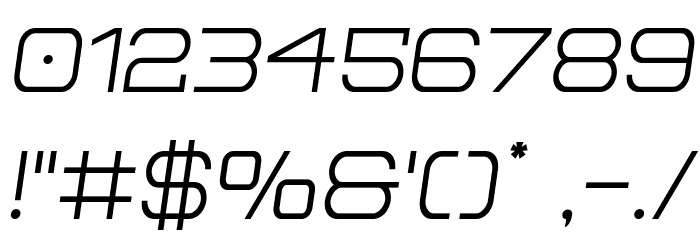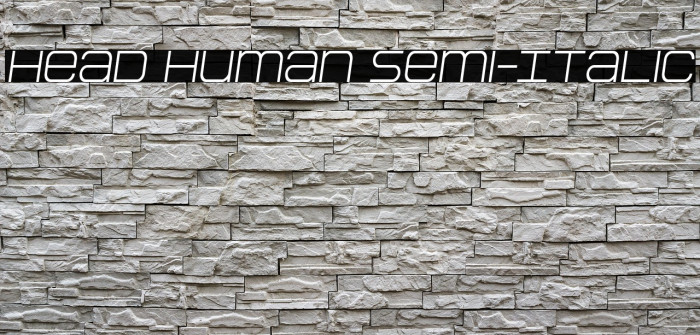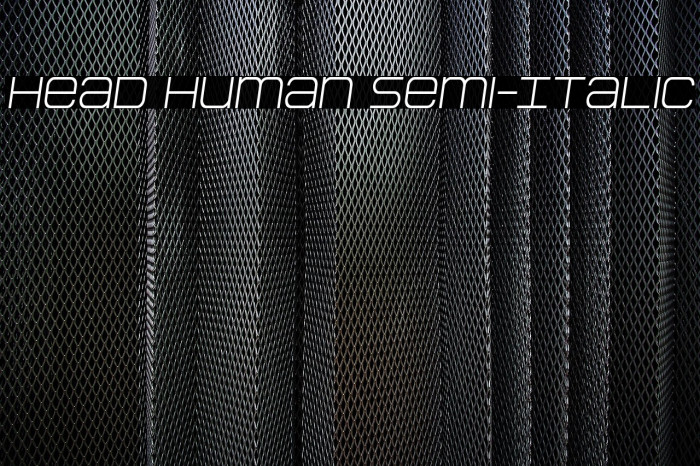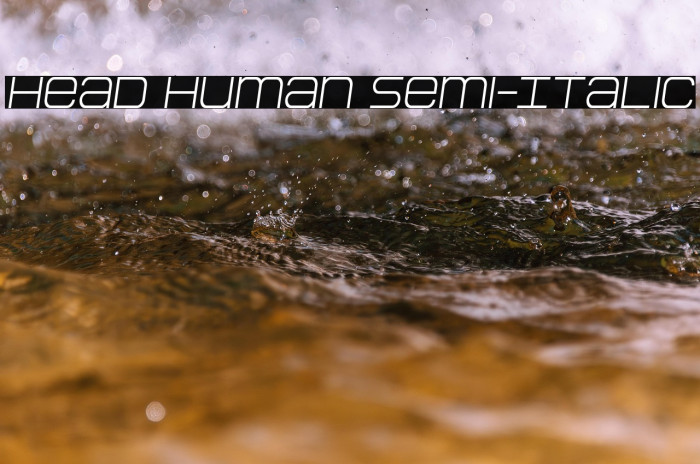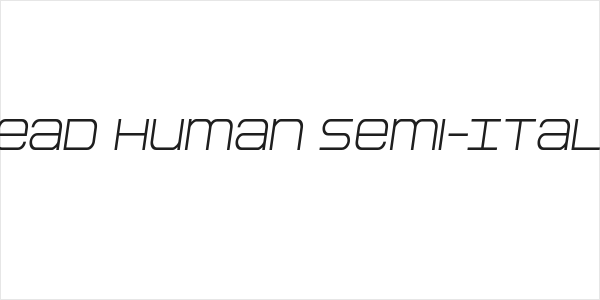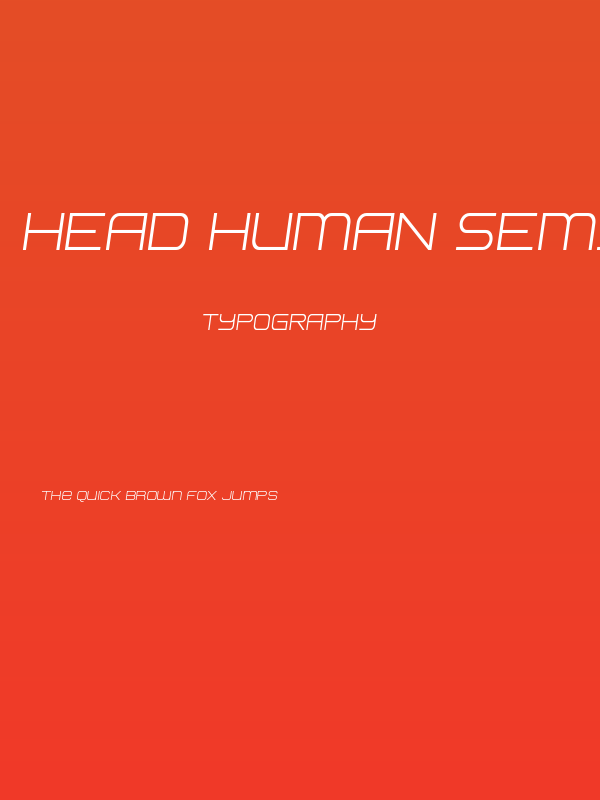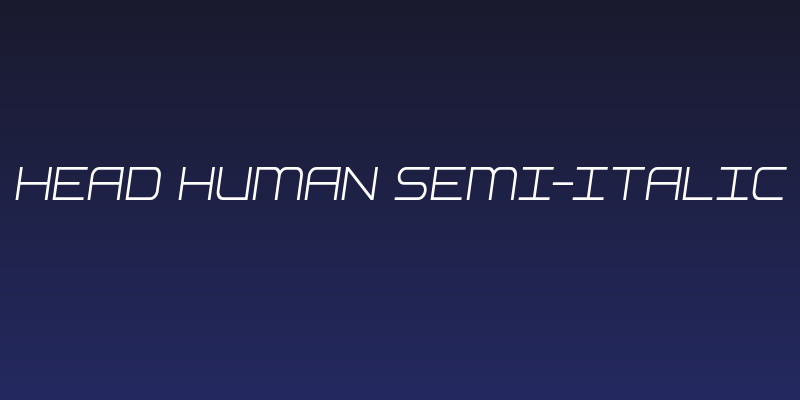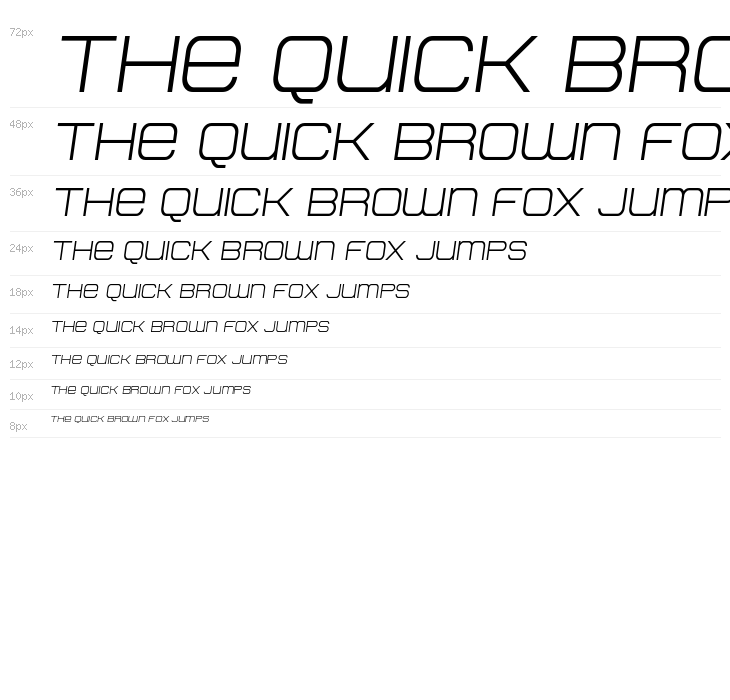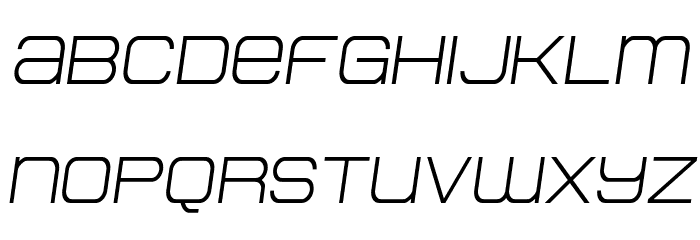
Head Human Semi-Italic Font
Head Human Semi-Italic Description
This font features a sleek, modern design with semi-italicized characters that convey a sense of motion and fluidity. The characters are constructed with clean, geometric lines, giving them a futuristic and technical appearance. The uppercase and lowercase letters maintain a consistent style, with rounded edges and a slight slant that enhances readability while adding a dynamic touch. The numerals and special characters are designed to match the overall aesthetic, ensuring uniformity across all text elements. This font's unique style makes it suitable for projects that require a contemporary and innovative look.